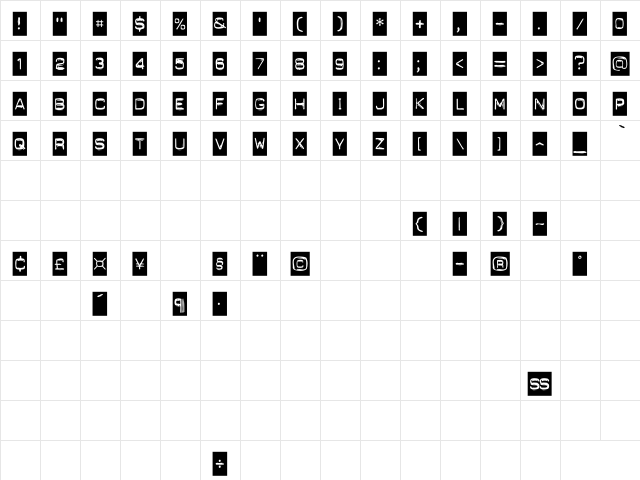
Complete Punch Label Regular glyph index. Displaying only characters natively supported by Punch Label Regular font.
Design Context for Punch Label
Punch Label is a composed and adaptable typeface that performs quietly and consistently across a wide range of design contexts.